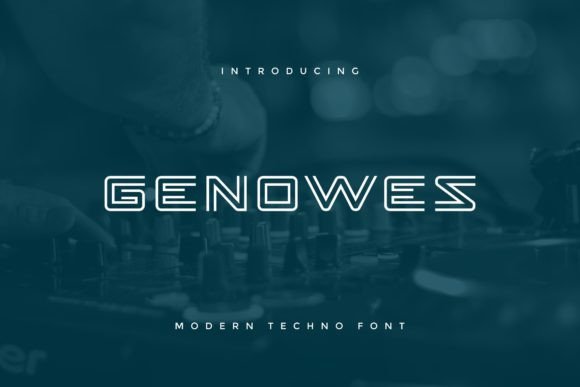
Genowes: The Bold Modern Display Font for Memorable Branding
I still remember the afternoon I realized my bakery's new packaging looked a bit flat. We had delicious cookies and artisanal bread, but the labels on our jars and boxes felt generic. The text was readable, sure, but it didn't have any personality. It didn't make customers stop scrolling or turn their heads in the shop. That day, I decided we needed a bold, modern display font with playful flair to match the energy of our products. After testing several options, I found Genowes, and it completely transformed how our brand feels to our customers.
When you are running a small business, every pixel counts. You need typography that does more than just convey information; it needs to set the mood. Genowes is exactly that kind of typeface. It is designed to be an attention-grabbing headline font that brings a sense of fun and confidence to your designs. Whether you are updating a café menu, designing product labels for a candle seller, or refreshing your online shop banner, this font offers the versatility required for diverse design projects while maintaining a polished look.
Genowes for Logo Design and Eye-Catching Headlines
Genowes immediately stands out as a premium display font that excels when you need to make a strong first impression. In my experience working on branding materials, the logo is often the first thing a customer sees, and it needs to communicate your brand's character instantly. When I applied Genowes to our new bakery logo, the bold strokes gave our name a confident presence that softer fonts simply couldn't achieve. The playful flair inherent in the letterforms adds a touch of approachability, making the brand feel friendly rather than stiff or corporate.
This typeface is ideal for attention-grabbing headlines where you want to stop the scroll. Unlike standard body text fonts, Genowes is built to be seen from a distance or at large sizes. I tested it on a variety of digital ads and social media graphics, and it consistently drew the eye. The unique shapes of the letters create a rhythm that guides the viewer through the message. For any entrepreneur looking to build a recognizable brand identity, using a font like Genowes for your primary logo or main headline ensures that your business looks professional and memorable from day one.
Why Genowes Works Better Than Generic Fonts for Branding
Many small business owners start with default system fonts because they are free and easy to use. However, these common fonts often lack the distinctiveness needed to stand out in a crowded market. Genowes fills that gap by offering a specific visual character that feels curated and intentional. When you pair a creative font like this with clean imagery, it elevates the entire perception of your product.
I noticed a significant difference in how customers perceived our brand after switching to Genowes. The font suggested that we put care into every detail, which translated into higher trust levels. It creates a cohesive look across all touchpoints, from the physical tags on our boutique items to the digital banners on our website. This consistency is crucial for building a loyal customer base who can instantly recognize your style without seeing your logo.
Genowes for Product Labels, Packaging, and Stickers
One of the most practical applications I found for Genowes was on our product packaging. If you sell handmade goods, skincare, candles, or baked treats, your label is a critical part of the unboxing experience. A boring label can make a high-quality product feel cheap, but the right typography can justify a premium price point. Genowes is versatile enough to handle both short phrases and slightly longer titles without losing its impact.
I used this font to redesign our candle jar labels and bakery box stickers. The bold weight of the letters ensured that the product name was legible even on smaller surfaces. Because it is a modern display font, it handles curves and angles well, making it perfect for wrapping around jars or printing on curved packaging. The playful nature of the design adds a layer of charm that customers love to share on social media, effectively turning your packaging into free marketing material.
When designing for print, readability is key. Genowes strikes a great balance between style and clarity. It is not so decorative that it becomes hard to read, but it is far from plain. I recommend using it for the main product title or the brand name on your packaging, perhaps pairing it with a simpler sans serif font for the ingredients list or instructions. This combination ensures that your design remains elegant while providing all necessary information clearly.
Enhancing Social Media Graphics and Digital Ads
Beyond physical products, Genowes has become a staple in my digital design workflow. Creating consistent social media graphics requires a font that pops against various backgrounds. Whether I am designing an Instagram story highlight cover, a Facebook ad banner, or a Pinterest pin, Genowes delivers the visual punch needed to compete in a fast-paced feed.
The font's ability to grab attention makes it excellent for call-to-action buttons or promotional text in digital ads. I recently ran a campaign for a seasonal collection, and the images featuring Genowes in the headlines received significantly higher engagement than those with standard text. The font's modern aesthetic aligns perfectly with current design trends, helping brands appear up-to-date and relevant. It works equally well for lifestyle bloggers, coaches, and online sellers looking to professionalize their content strategy.
Genowes for Menus, Flyers, and Event Signage
If you own a café, restaurant, or host events, your menus and flyers are prime real estate for showcasing your brand's personality. I tried using Genowes for a local pop-up event menu, and the results were fantastic. The font's bold character made the dish names stand out, guiding customers' eyes to the highlights of the meal. It brought a sense of excitement to the dining experience before the food even arrived.
For flyers and posters, Genowes allows you to communicate urgency and enthusiasm. Its playful flair prevents the design from feeling too serious or formal, which is often what businesses want when promoting community events or sales. The versatility of the font means it can adapt to different contexts without losing its core identity. Whether you are announcing a grand opening or listing special daily deals, this typeface ensures your message is clear and compelling.
Pairing Genowes with a clean sans serif font for the body text creates a balanced hierarchy. The bold display font captures attention, while the supporting text provides the details. This approach is essential for ensuring that your audience can quickly scan the information they need while enjoying the overall aesthetic. It is a simple yet effective way to elevate your print materials and make them look professionally designed.
Ensuring Commercial Success with Professional Typography
Investing in a quality commercial font like Genowes is an investment in your business's long-term success. When you use a font designed for diverse design projects, you avoid the legal pitfalls of using unauthorized software and ensure that your brand assets are scalable. The included styles, file formats, and potential ligatures allow for endless customization, giving you the freedom to create unique layouts that reflect your brand's voice.
By choosing a font that is both bold and playful, you signal to your customers that you are innovative and attentive to detail. Genowes helps bridge the gap between your product quality and your visual presentation, creating a unified brand experience. For any small business owner looking to polish their image, this font is a powerful tool that delivers immediate visual impact and lasting brand value.